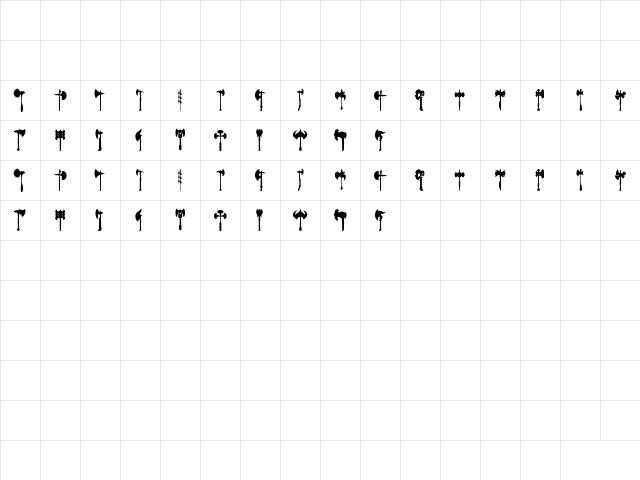
axe for warrior Regular
Design Context for axe for warrior Typeface
axe for warrior is a composed and adaptable typeface that performs quietly and consistently across a wide range of design contexts.